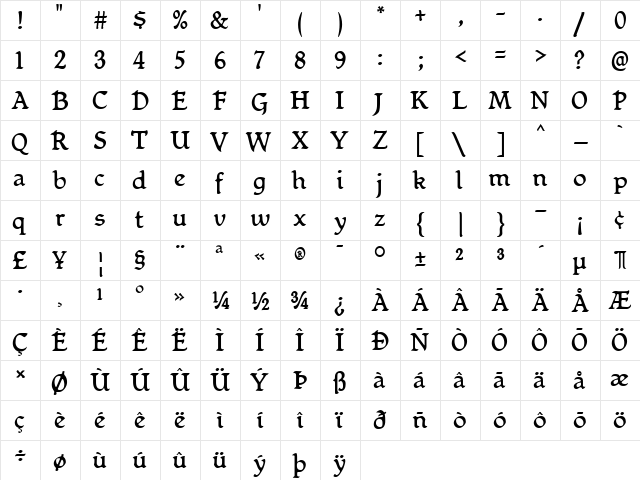
Mikadan Regular
Design Context for Mikadan Typeface
Mikadan takes a measured approach to typography — its balanced proportions and neutral character make it a reliable workhorse for both digital and print work.